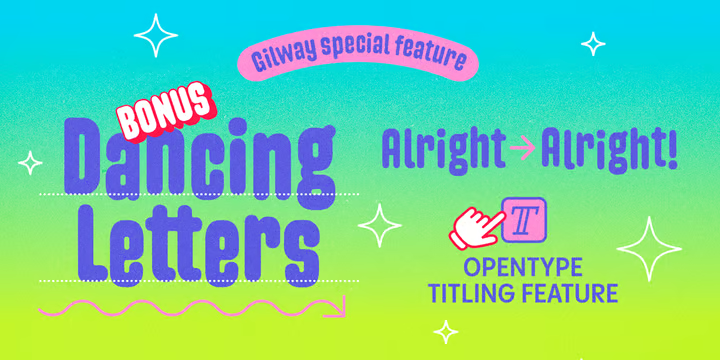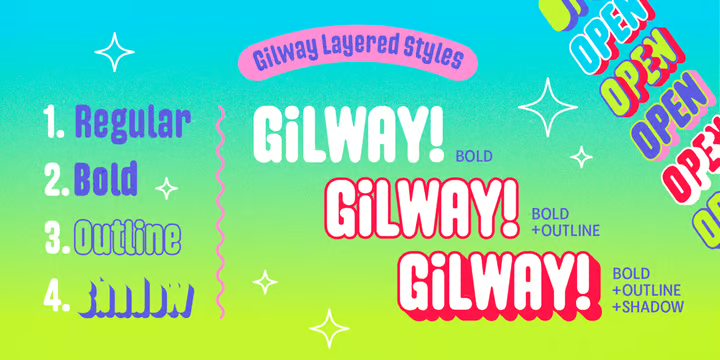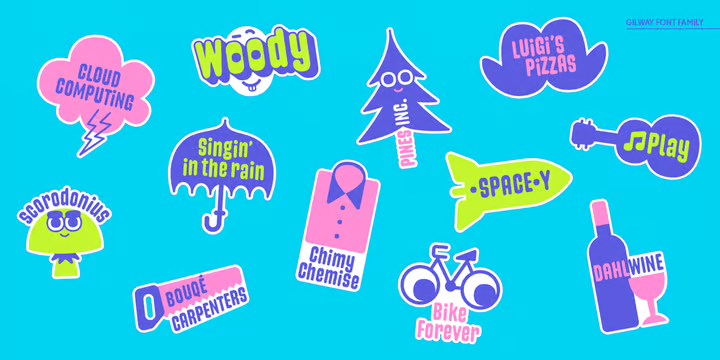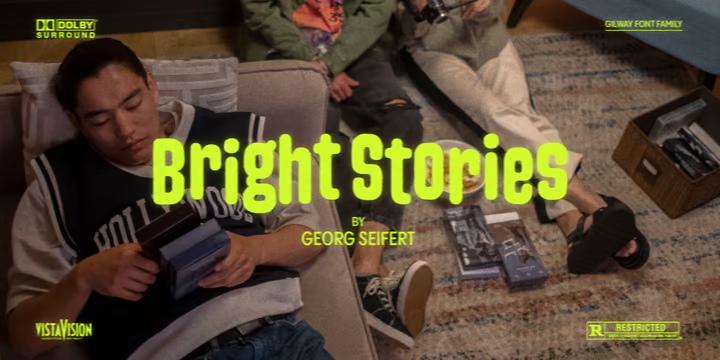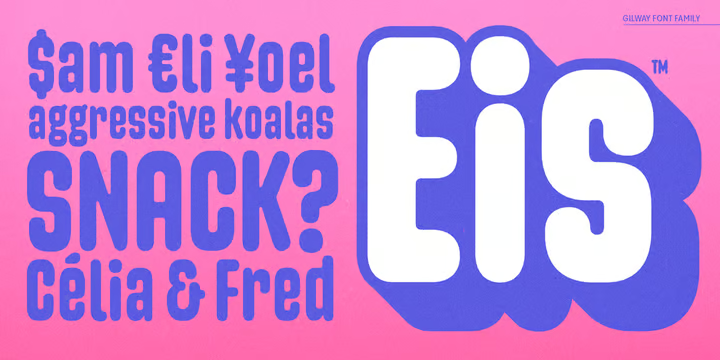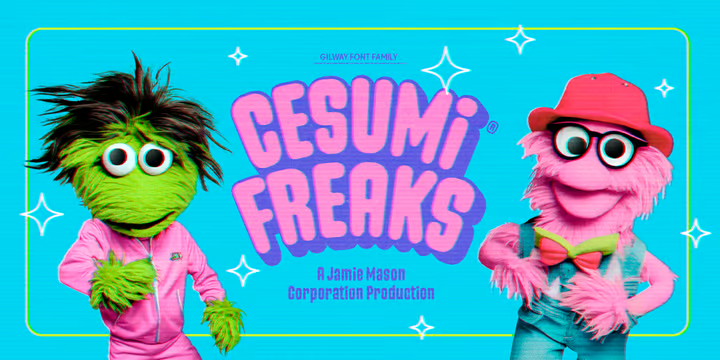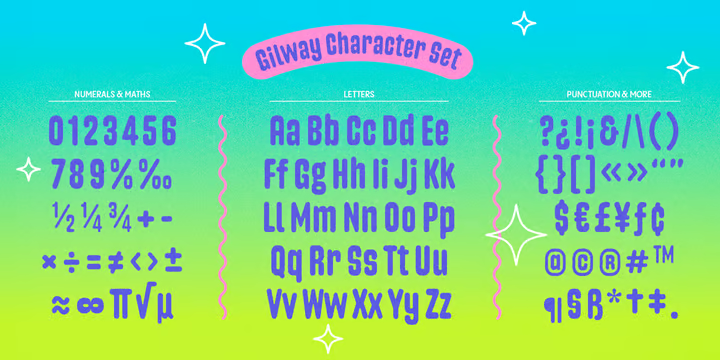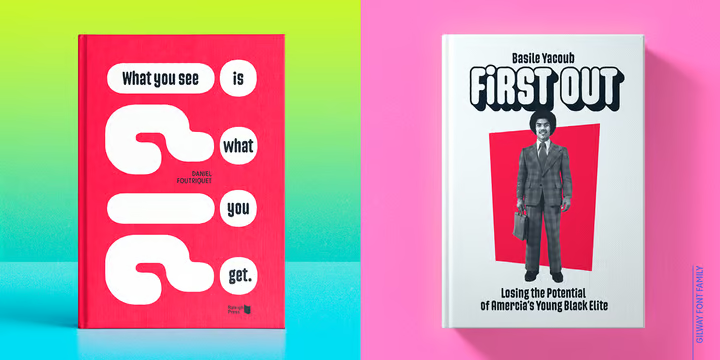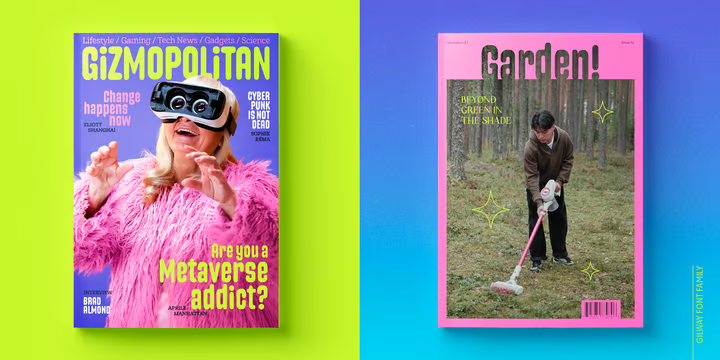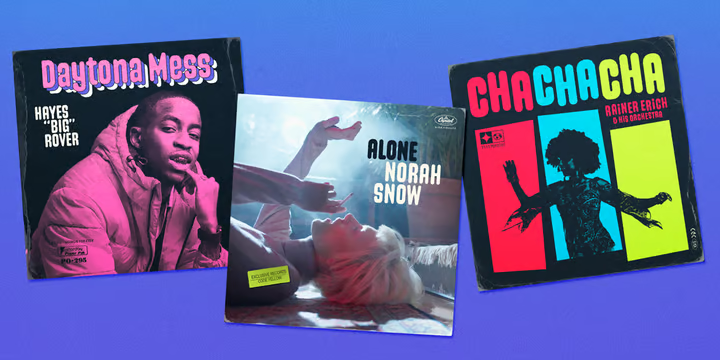
Gilway Font Family
Gilway is a playful, rounded display with tons of personality. This versatile typeface is inspired by the earliest examples of rounded types from the 19th century, such as Caslon Rounded (1836) and Schmale Runde Grotesk (1885). Gilway has a distinctive hand-lettered feel because of its subtle variances, which make it powerful and impactful yet incredibly friendly. Layered options allow you to combine the various styles, and a unique Opentype feature makes your letters dance! Gilway’s design is suited for a wide range of uses, including headlines, displays, packaging and logotypes.
Gilway Font Family is a Font Family font that brings a professional and versatile look to your projects. Gilway is a playful, rounded display with tons of personality.